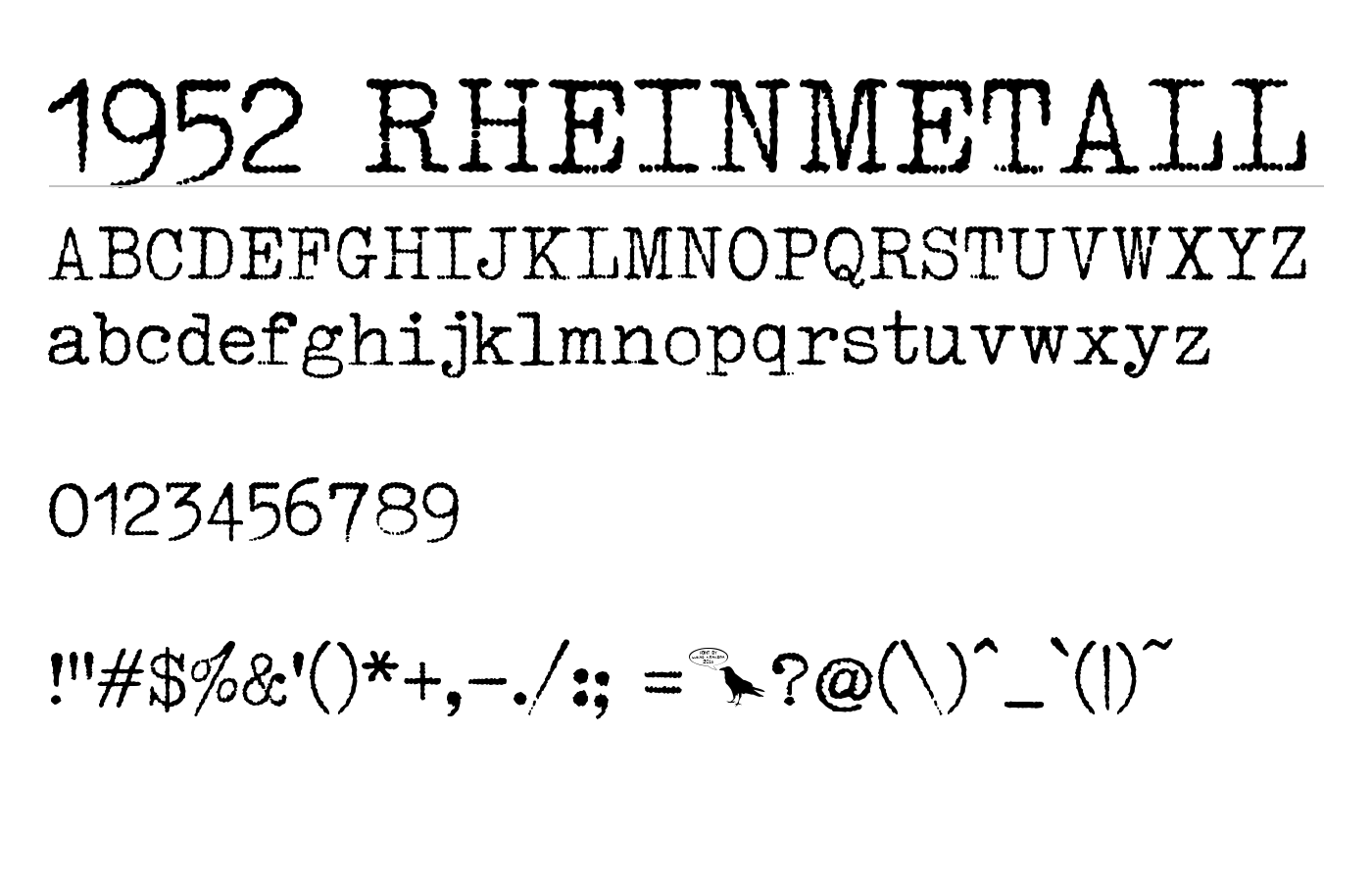
1952 RHEINMETALL is a serif typewriter-style font with a vintage, textured feel that evokes an old-fashioned mechanical or industrial vibe. The font features irregular, slightly distressed strokes with a medium weight and normal width, offering a nostalgic appeal perfect for retro designs, editorial projects, or branding that wants to communicate authenticity and character. Its classic letterforms and subtle roughness make it ideal for headlines, posters, or any usage seeking a handcrafted, timeless touch.
1952 RHEINMETALL Font
About 1952 RHEINMETALL Font
| Font family | 1952 RHEINMETALL Font |
| Designer | Lukas Krakora |